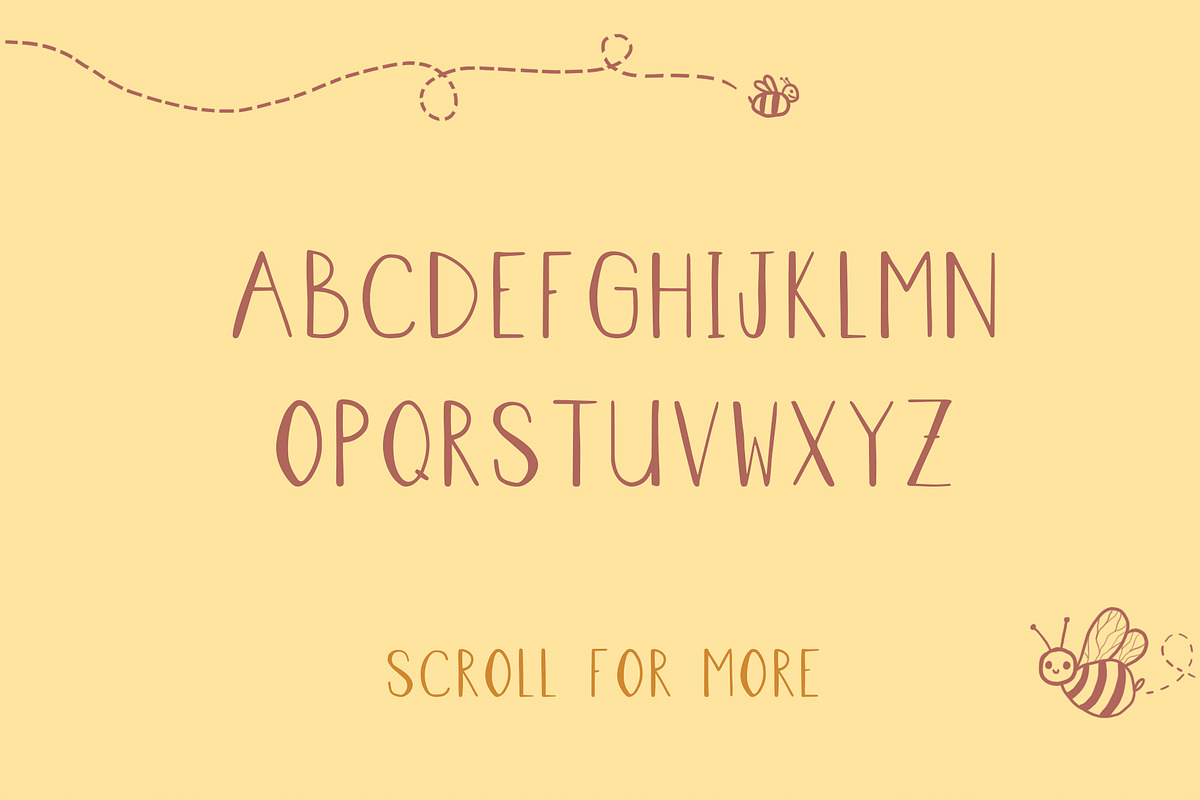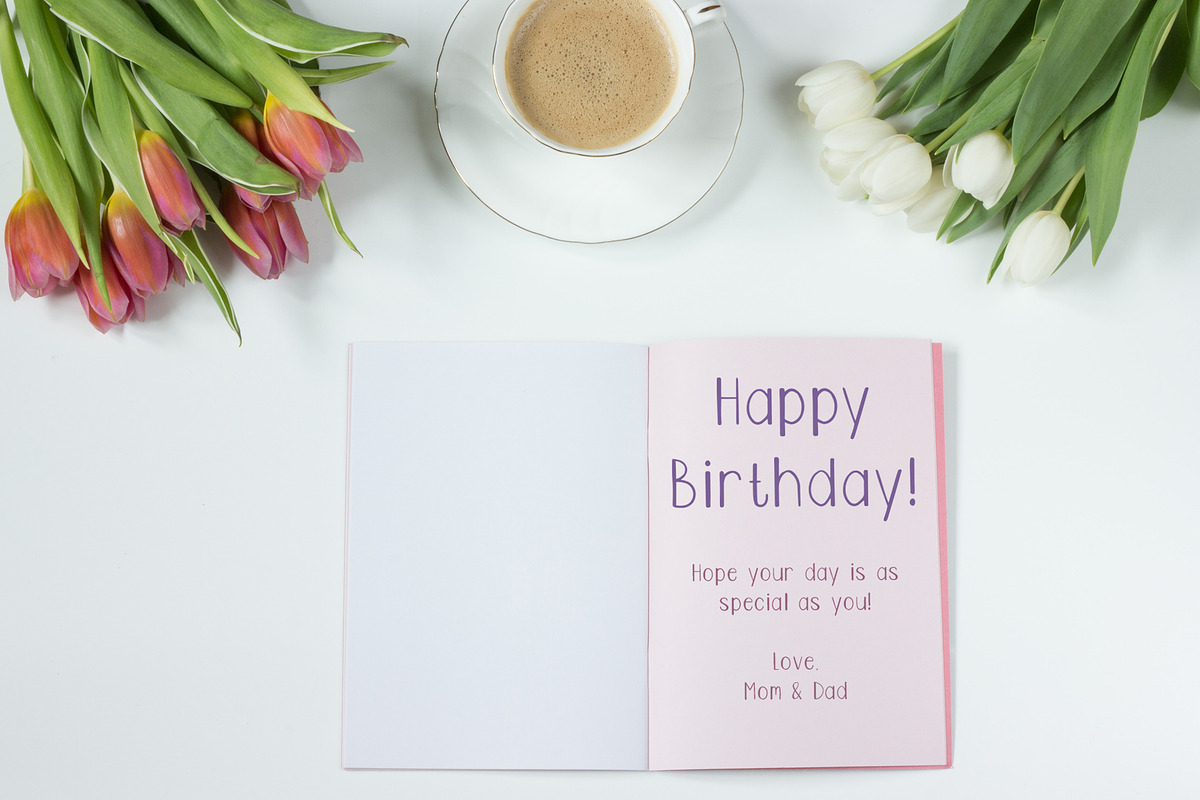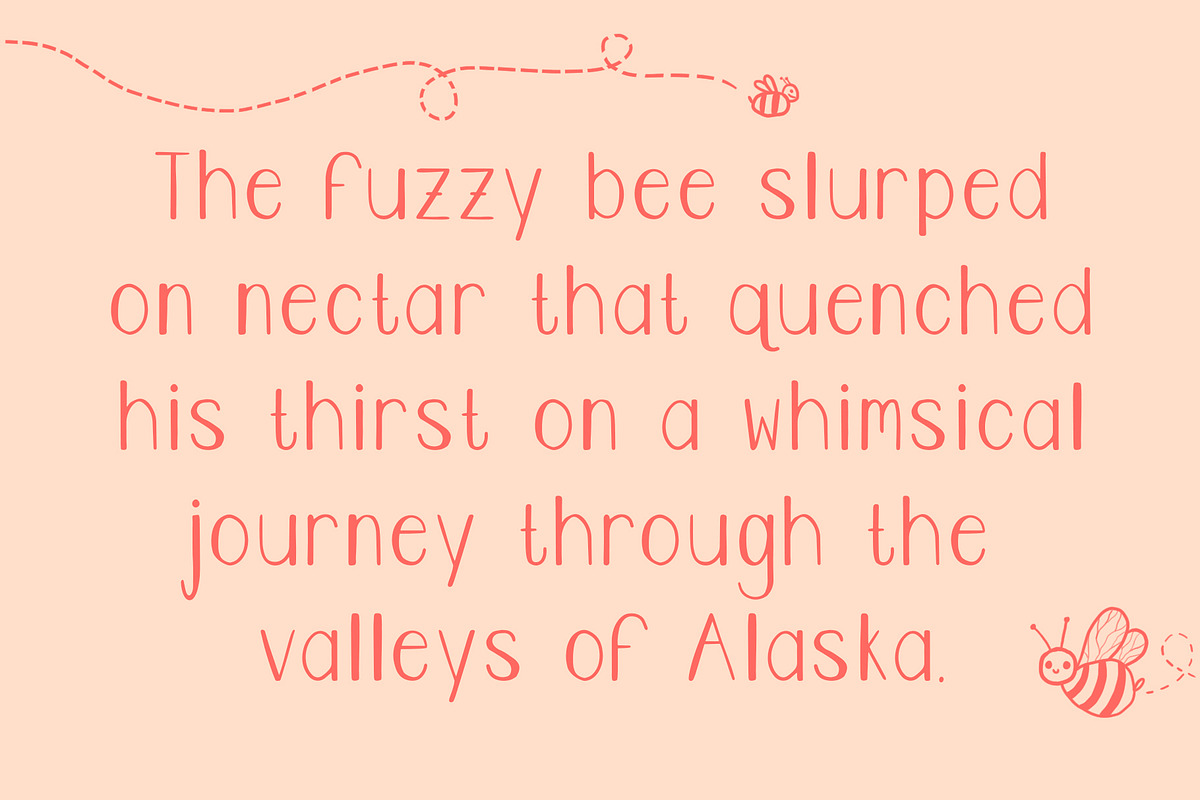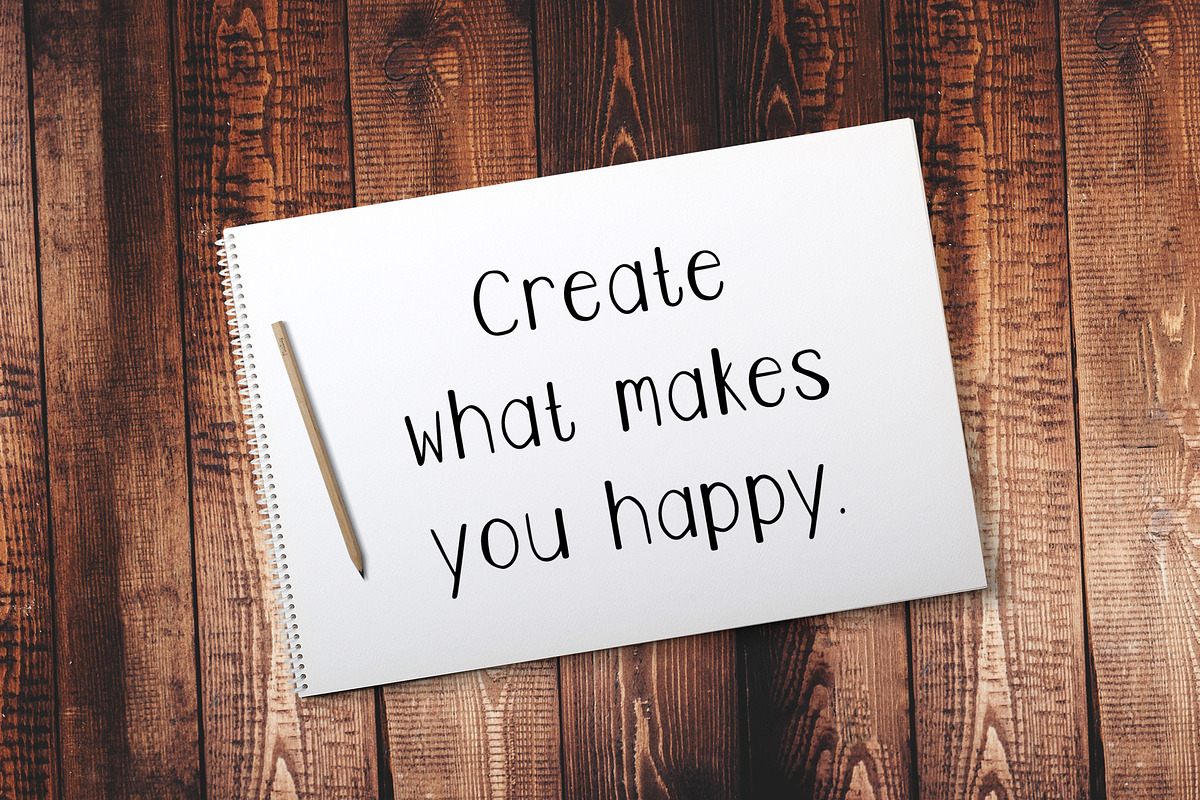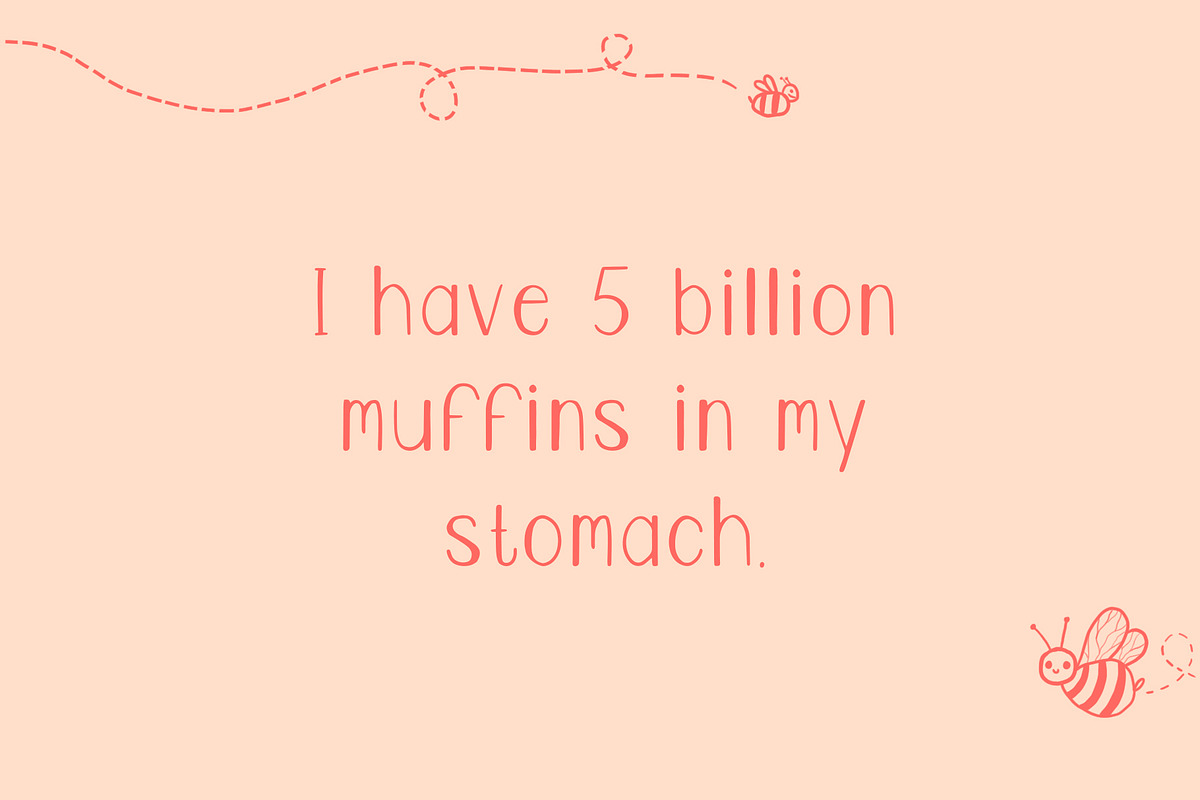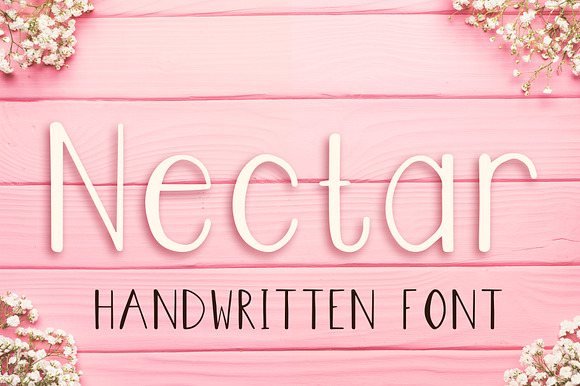
Nectar - Modern Handwritten Font
Nectar is a fresh, modern handwritten font! Each letter has been carefully crafted to appear soft, elegant, and upbeat. While staying on the simple side, Nectar will add a beautiful touch to your project without overpowering your design.
Nectar is perfect for any project - wedding invitations, birthday cards, logos, and more!